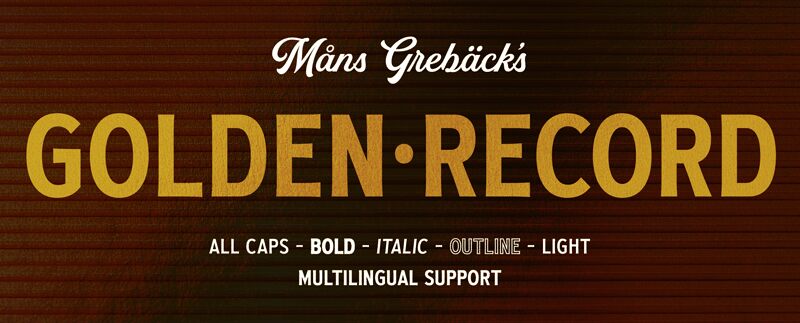
Golden Record Outlined is the perfect font for projects that demand a touch of sophistication and elegance. With its tall and classic design, this semi-condensed font adds a luxurious feel to any branding or design application.
The outlined style adds an extra layer of uniqueness and creativity, making it ideal for eye-catching headlines, logos, posters, and packaging designs. Whether you're working on a high-end fashion brand, a luxurious hotel, or an upscale event invitation, Golden Record Outlined will elevate your project to new levels of refinement. Its display typeface ensures that your message stands out with its distinct charm and high-quality appearance.
Let Golden Record Outlined be the golden touch that sets your design apart from the rest.